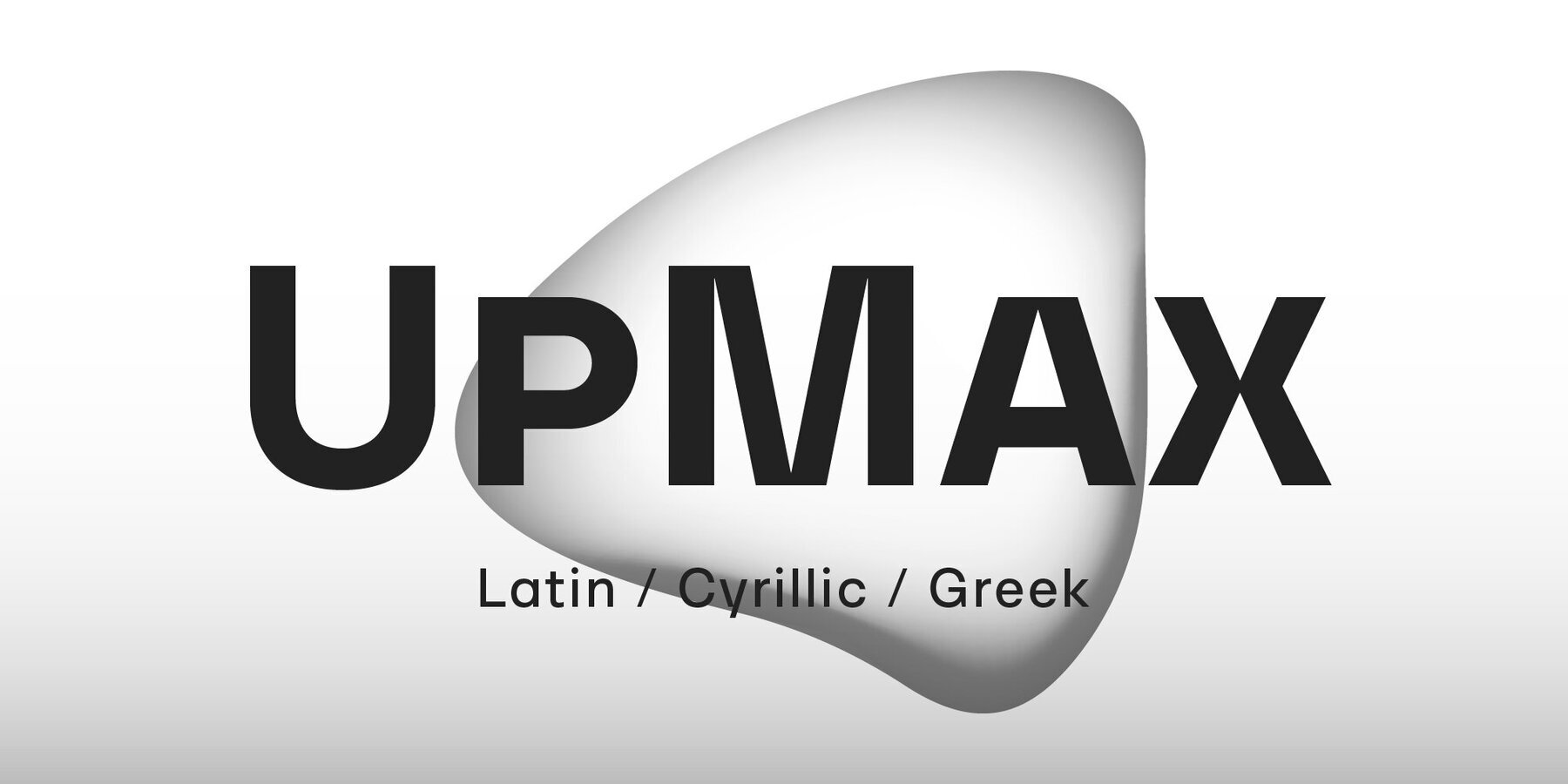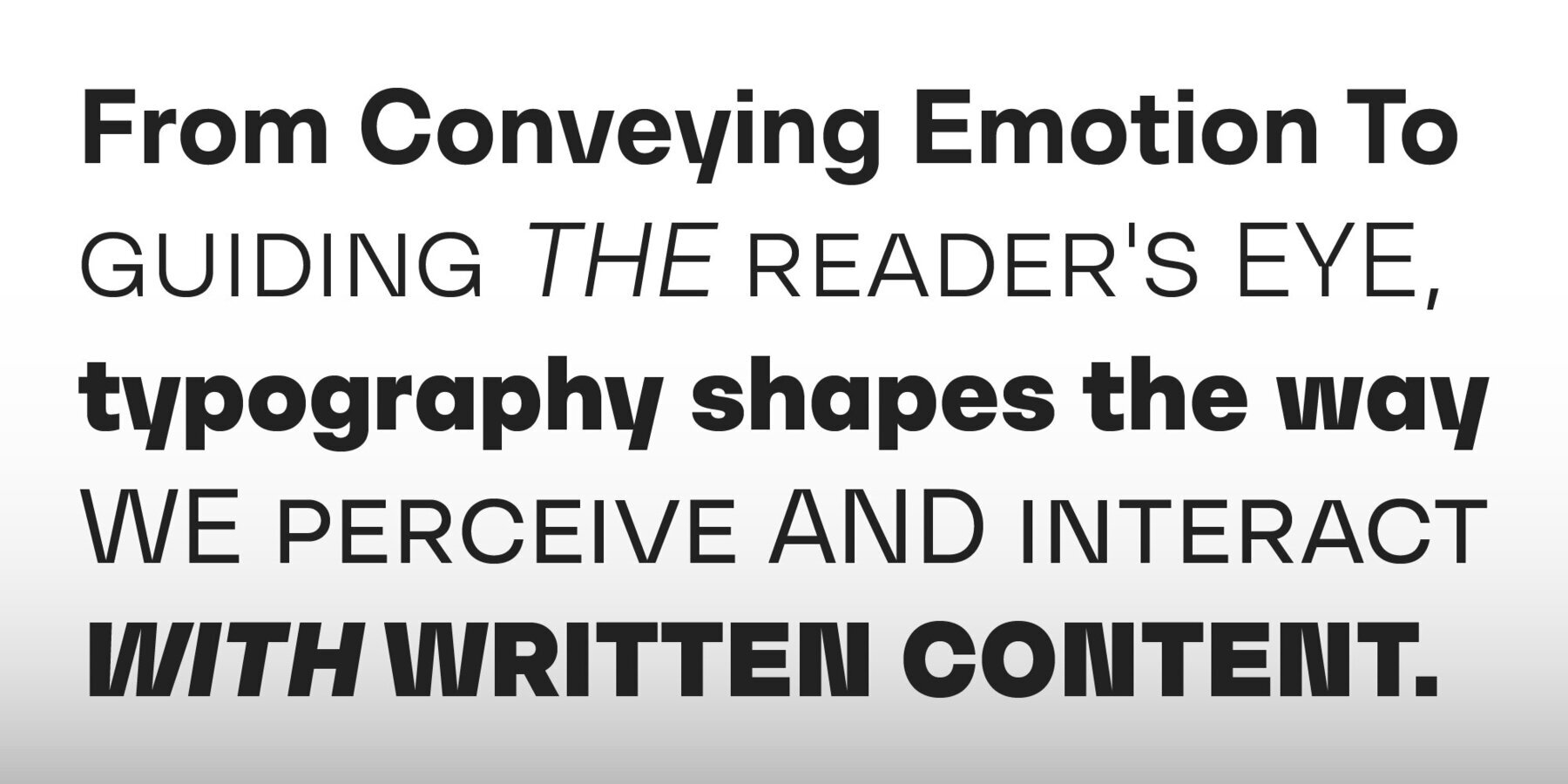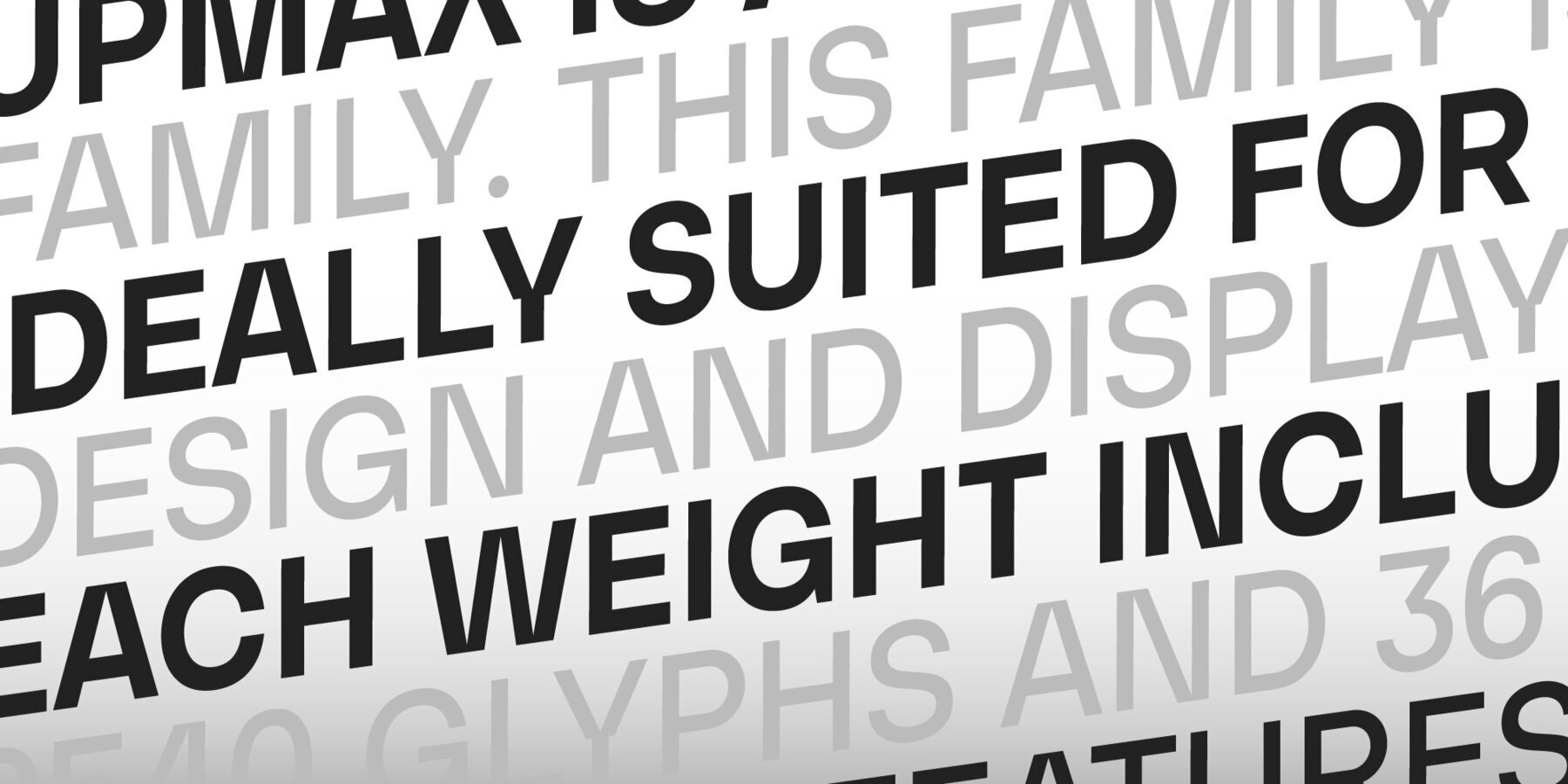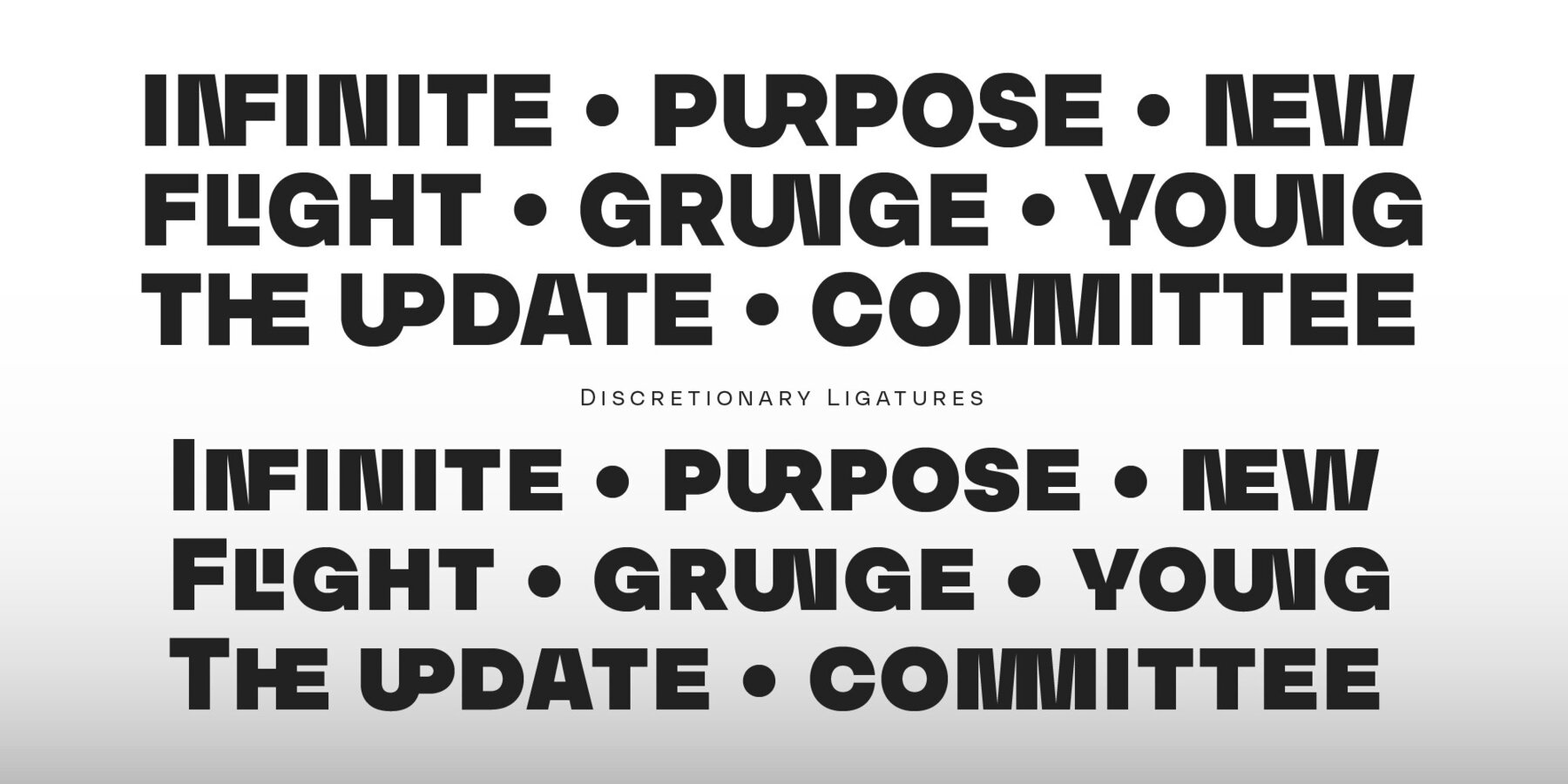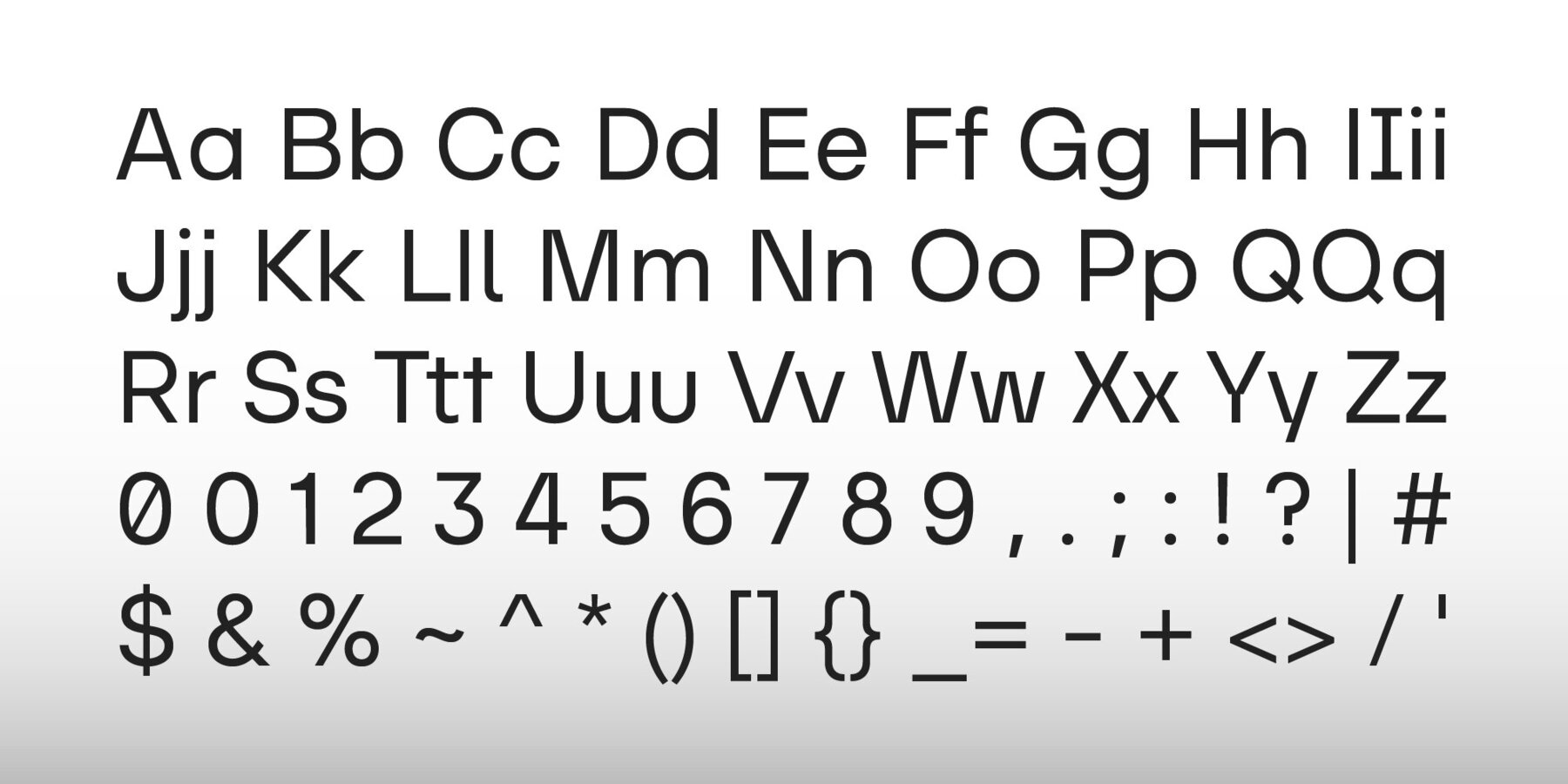
UpMax Font
The UpMax font family is designed for versatility, making it an ideal choice for both graphic design and display purposes. UpMax supports extended Latin, including Vietnamese, as well as Cyrillic, covering Bulgarian, and Greek languages.UpMax: Versatile Modern Font Family
Comprehensive Language Support
Extensive Font Weights and Features
Savchuk Mykola began his career as a graphic designer. Over time, he had a desire to create a font that would reflect his view of typography. ‘They say that all ingenious things are simple, although unique. In my future projects, I want to reflect simplicity on the one hand and uniqueness on the other, providi...